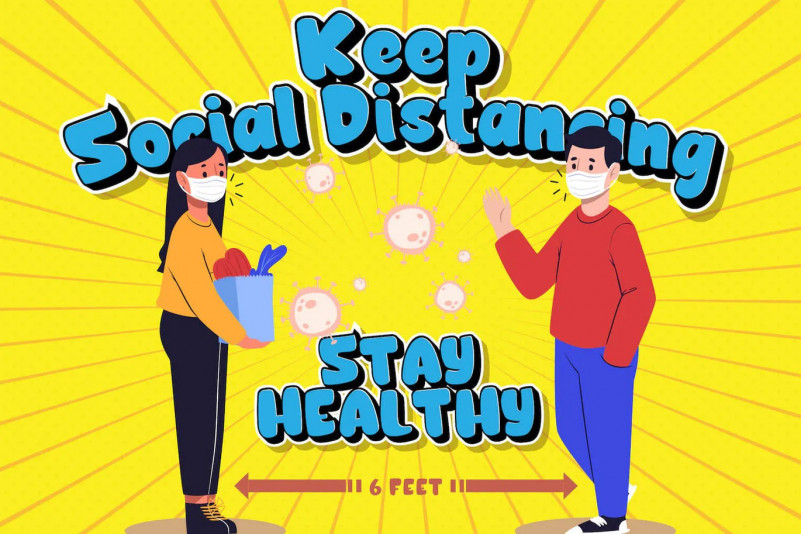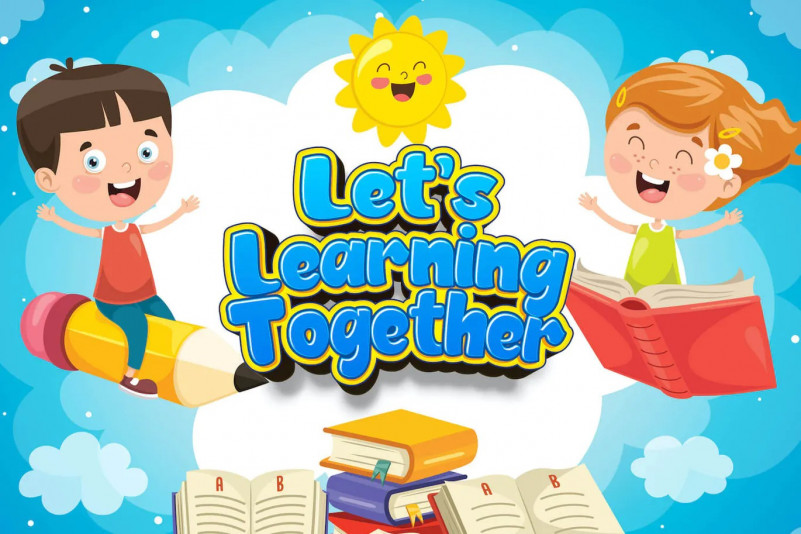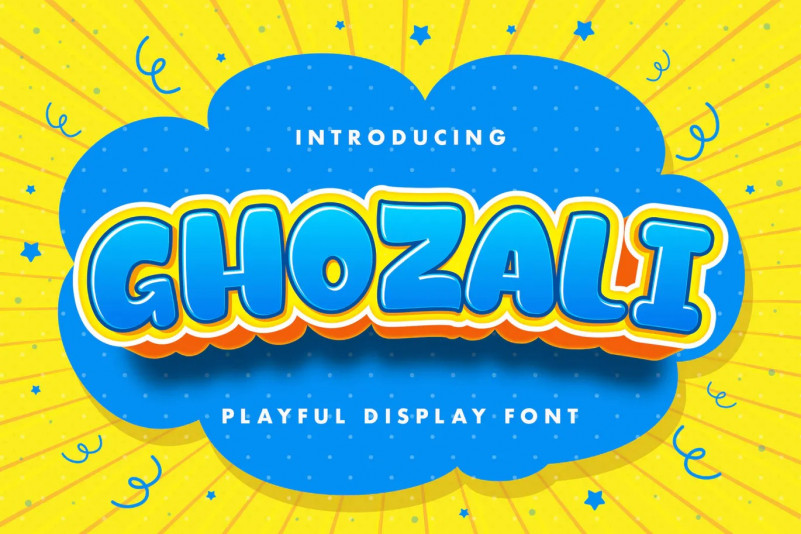
Ghozali Font
Ghozali is a fun and chunky lettered display font. Playful and fresh, this font will be a hit for each of your children or school projects!